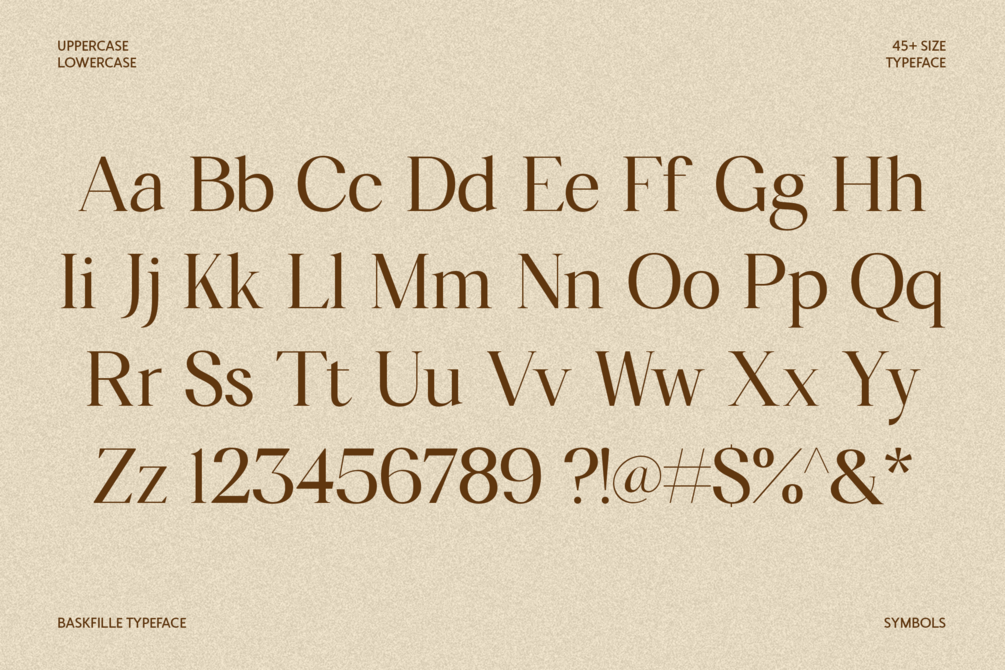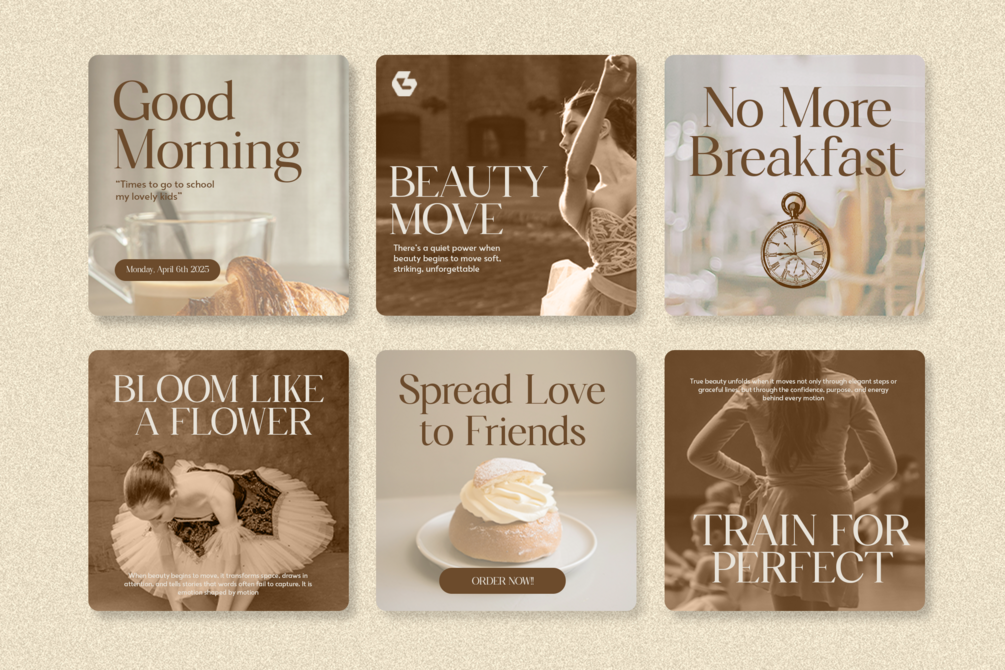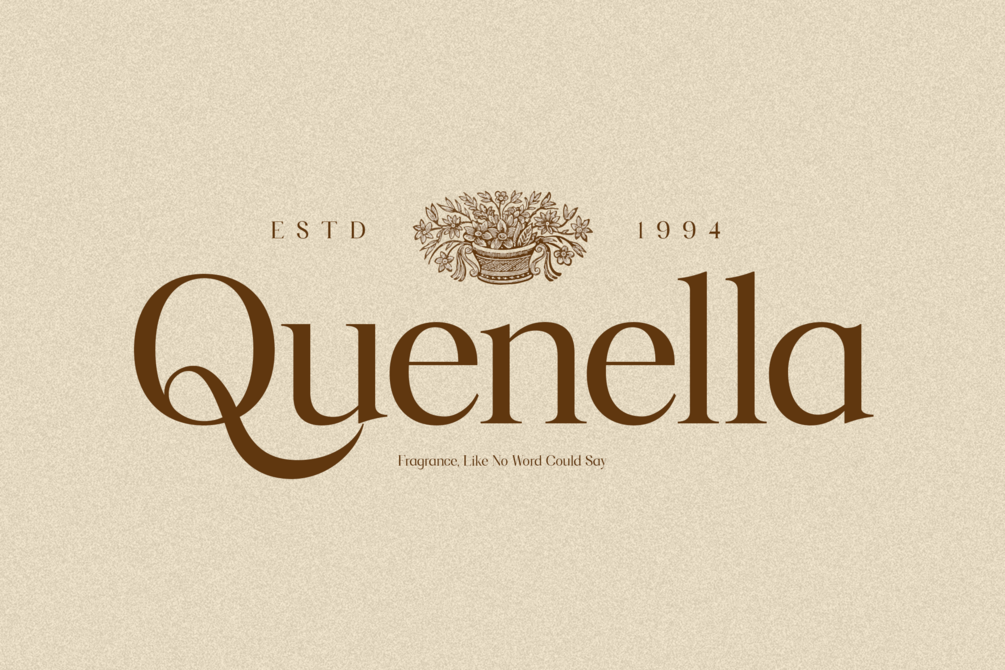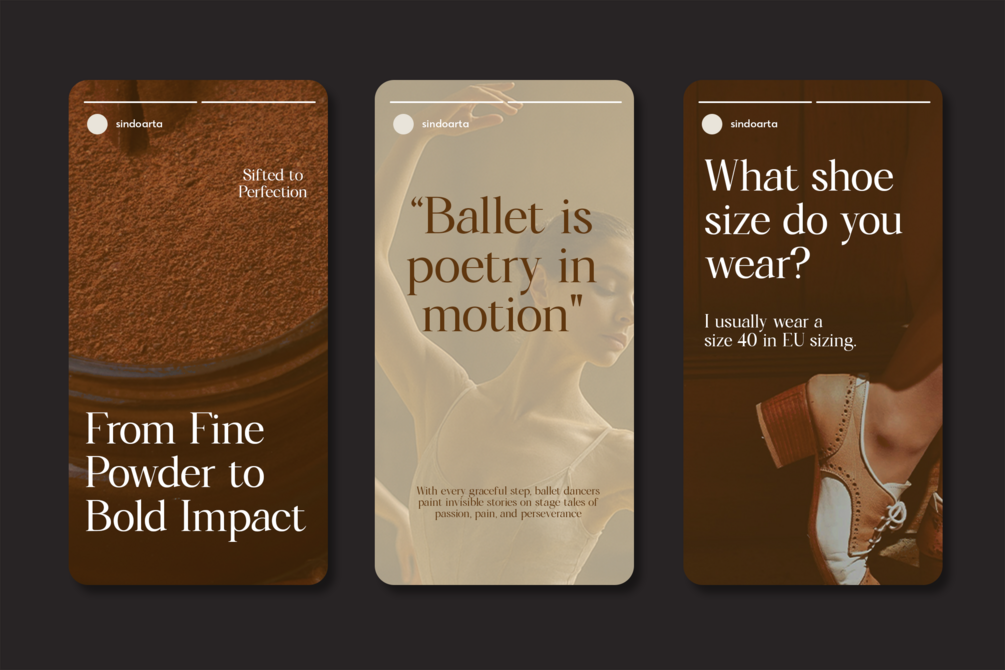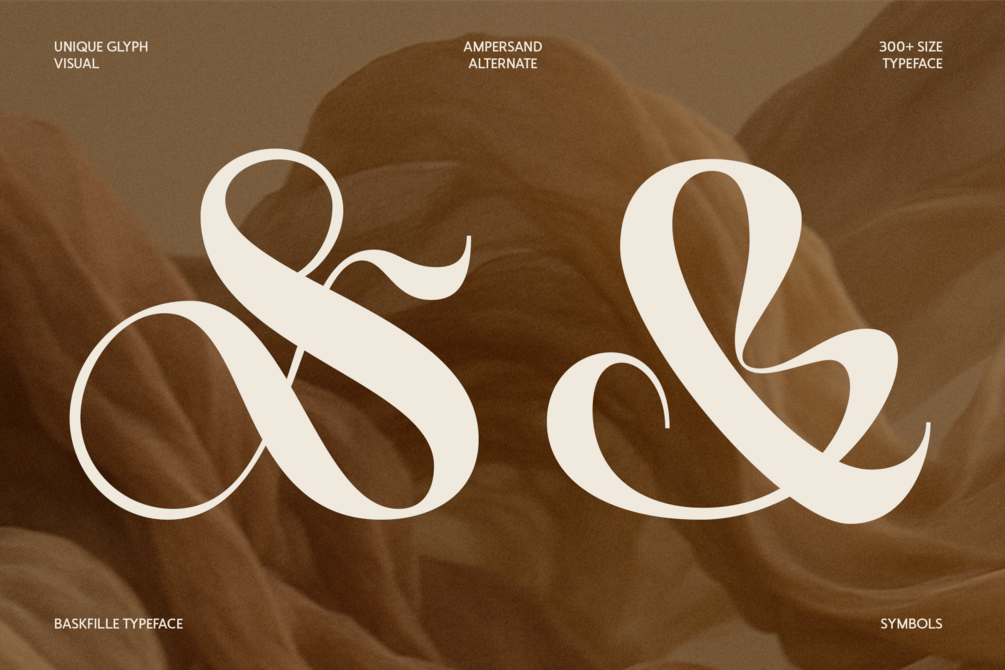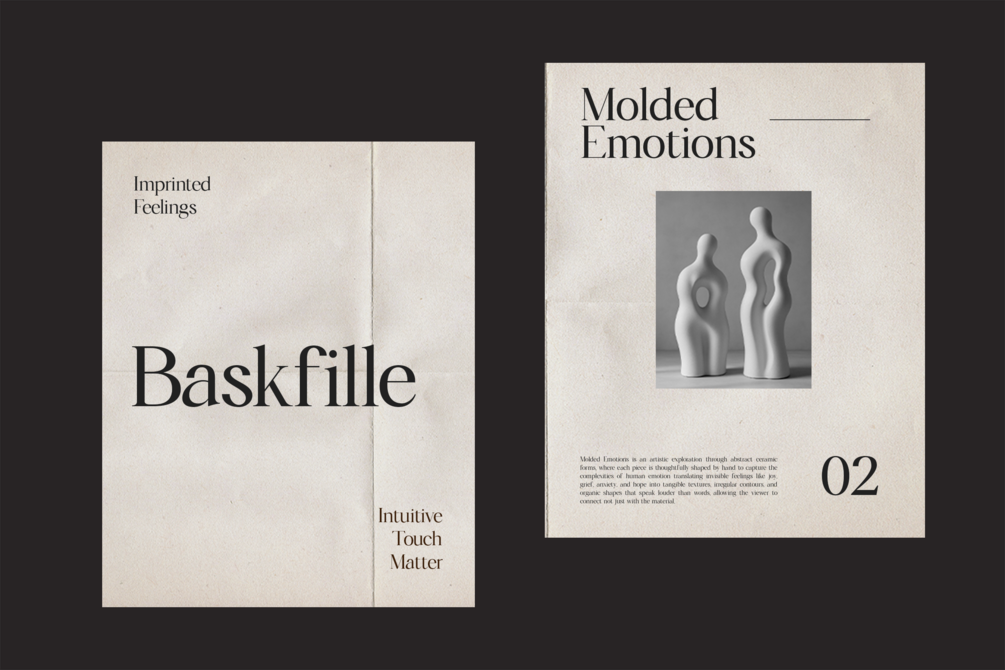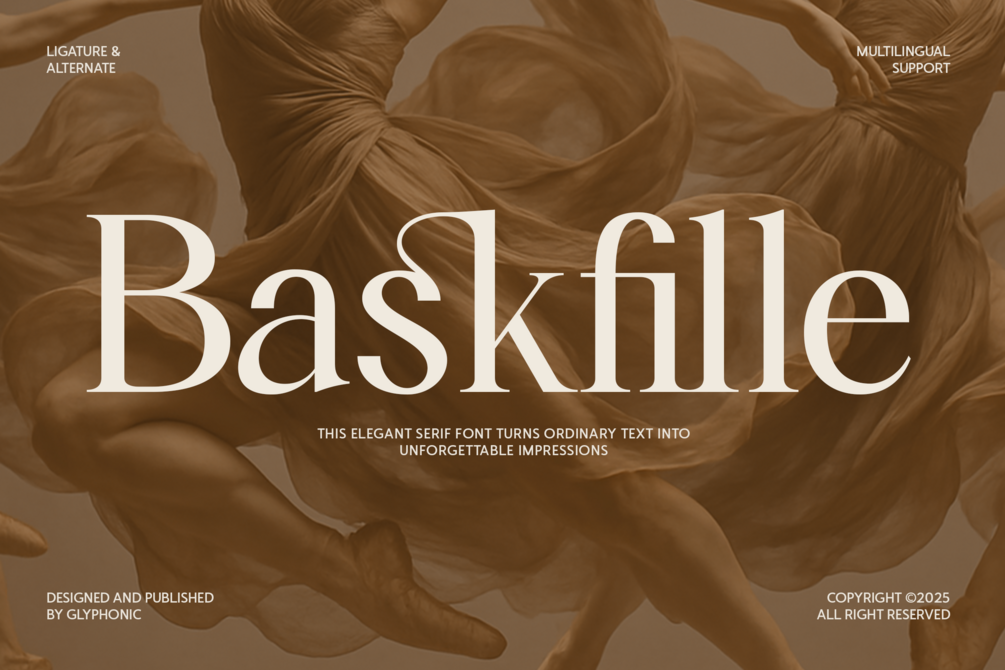
GC Baskfille - Elegant Serif Typeface
Baskfille is an Elegant Serif Typeface that blends classic charm with a modern flair.
Perfect for headlines, branding, logos, packaging, and editorial design, it’s crafted to create a lasting impression with refined elegance.
With its sharp serifs, high contrast strokes, and graceful proportions, Baskfille brings sophistication and character to any creative project.
Whether you’re designing for fashion, lifestyle, or artistic visuals, this typeface offers versatility, personality, and timeless beauty.
• Uppercase & Lowercase
• Stylistic Alternates
• Discretionary Ligatures
• Numbers & Punctuation
• Multilingual Support
Make your design refined, expressive, and timeless with Baskfille.